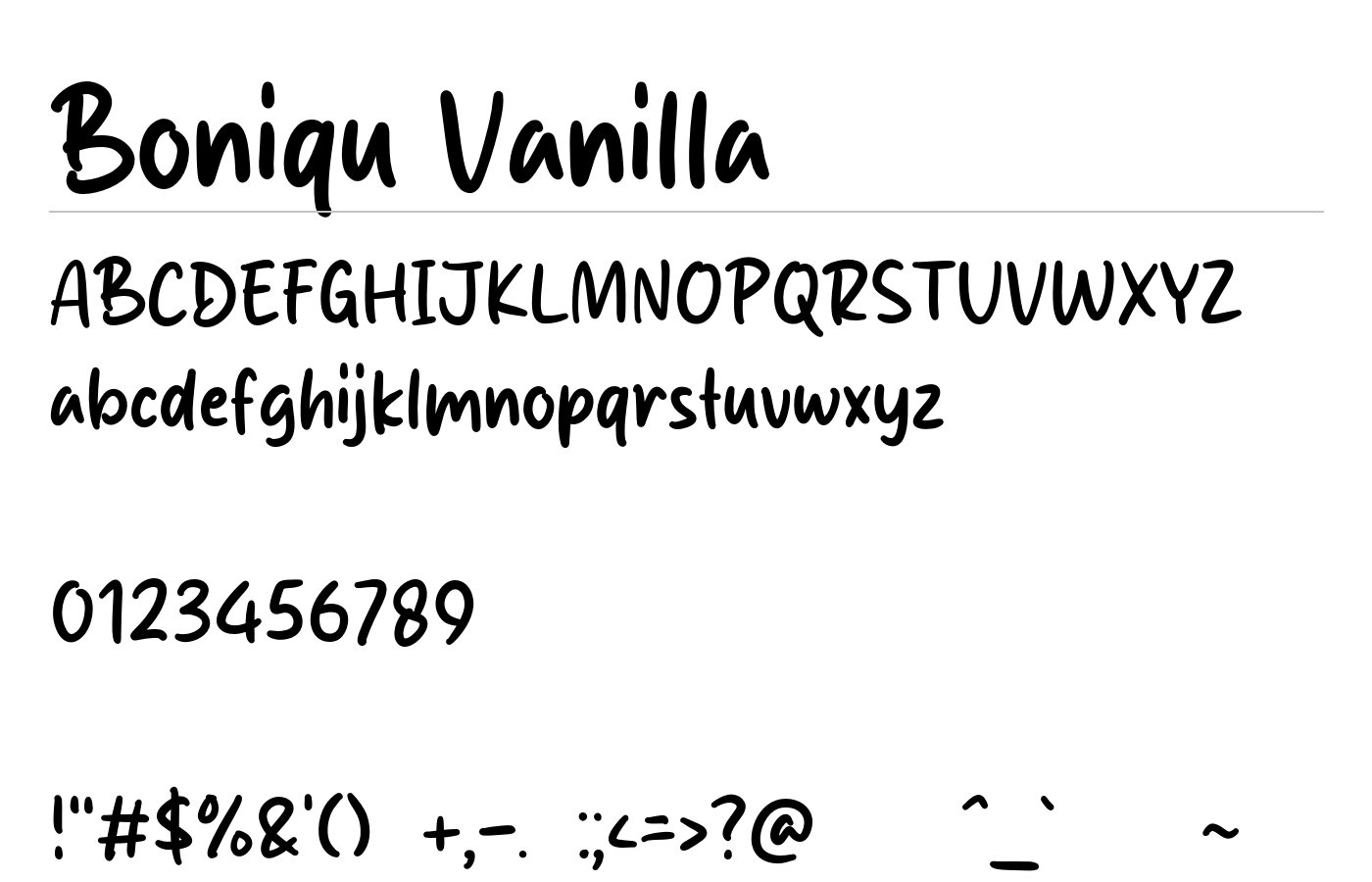
Boniqu Vanilla is a friendly and casual handwritten sans serif font that features smooth, rounded strokes with a slightly playful character. Its medium weight and consistent stroke width give it a warm, approachable feel, making it perfect for informal branding, invitations, and creative projects seeking a personal touch. This font works especially well in headlines and short texts where a natural, relaxed style is desired.
Boniqu Vanilla Font
About Boniqu Vanilla Font